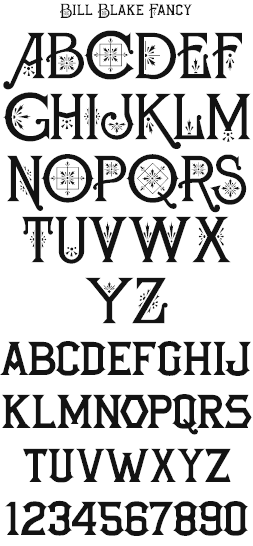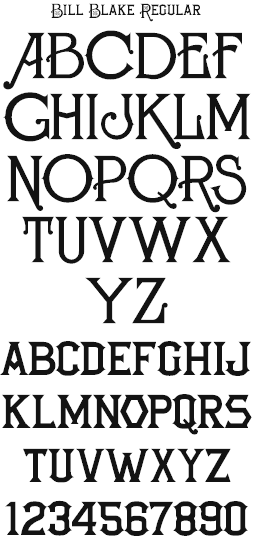
LHF Bill Blake Authentic vintage-style lettering from sign artist and renowned glass artisan Larry White. Set includes 2 styles with several alternates available to CS2 users via the alternate glyph palette.